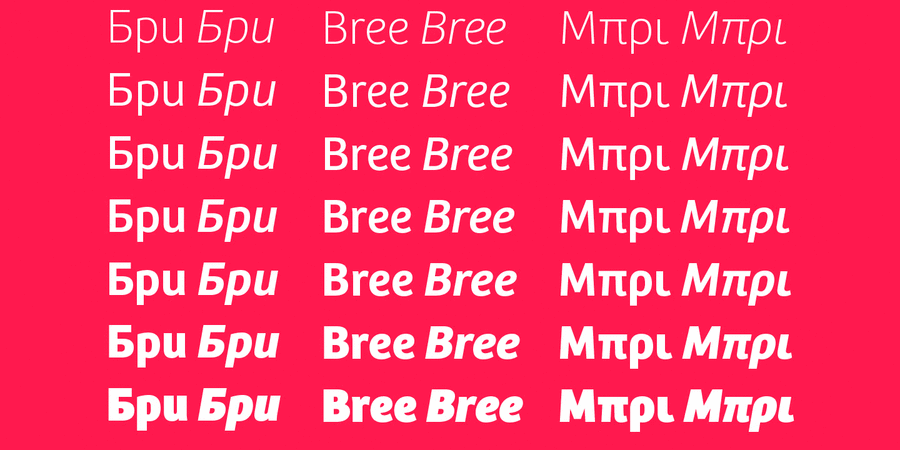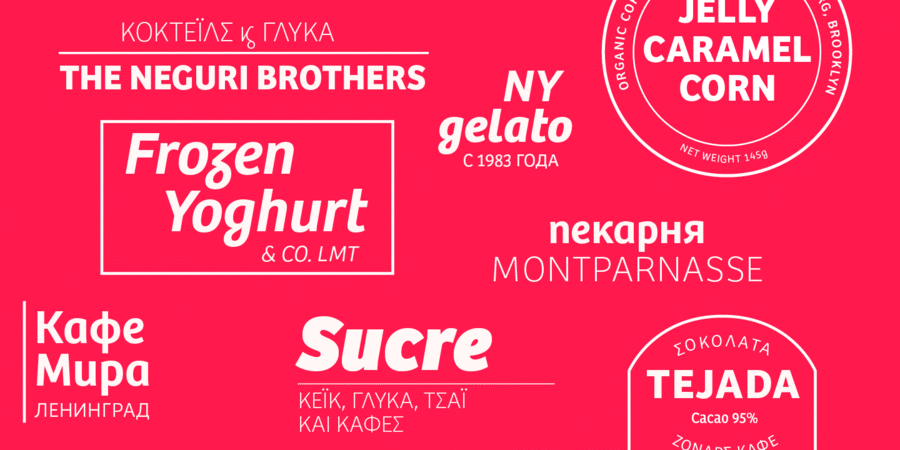
Bree is a spry sans serif that delivers a spirited look and feel for branding and headline usage. As an upright italic, Bree shows a pleasant mix of rather unobtrusive capitals with more vivid lowercase letters, giving text a lively appearance. Bree is clearly influenced by handwriting with a touch of cheekiness, which equals a big personality. The font family includes 7 upright weights, 7 stalics and 2 variable fonts. Awards and nominations: 2008 Tipos Latinos exhibition, Appeared on several 2008 “Best Of” Lists, 2009 Bronze Award on European Design Festival, Special mention at 2019 GRANSHAN competition. The typeface was designed by Veronika Burian and Jose Scaglione in 2008-2019.
Associations for font family Bree CYRTypeface personality and character:
Soft, pleasant, cozy, comfortable, clear, friendly, kind, polite, beautiful, orderly, optimistic, cute, summer, family, home, organic, delicious, natural, green, fresh, confidence, original, interesting, laconic, plastic, flexible, smooth, high-quality, playful, dynamic, warm, clean, nice, honest, open, eco-friendly, balanced, moderate, modern, practical, available, harmonious, healthy, peaceful, delicate, alive, thin, easy, spring, weightless, transparent, air, slim, tender, active, benevolent, bright, expressive, notable, splashy, motivating, strong, cool, positive, heavy, generous
food, cafe, markers, paint, nature, water, hygiene, purity, bakery, summer, recreation, family, cosmetics, entertainment, society, game, store, retail, milk, cheese, graphics, illustration, house, morning, grocery, ecology, yoga, health, breakfast, diet, grass, Spring, lotion, Eau de Toilette, shampoo, ASMR, Hygge, dawn, snack, juice, coffee, interior, celebration, stationery, plasticine Typeface exhibits stylistic traits: